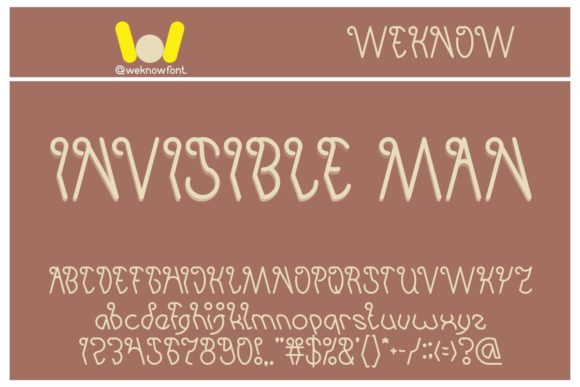
Journey into the World of the Invisible: Unleash the Mesmerizing Power of Invisible Man Font
Step into a realm where imagination knows no bounds, where typography transforms into art, and where your designs transcend the ordinary. Discover the enchanting allure of Invisible Man Font, a display font that captivates and entices with its enigmatic presence.
Designed by the visionary minds at weknow, Invisible Man Font is not just a font; it's a gateway to a world unseen. Its unique and captivating design dances upon the page, drawing eyes and sparking curiosity. Every stroke, every curve, every line is crafted with meticulous precision, embodying a harmonious blend of mystery and elegance.
With Invisible Man Font, your designs will whisper tales of intrigue and captivate your audience from the very first glance. Its enigmatic appeal makes it the perfect choice for posters, flyers, and print materials that demand attention. Let your words dance upon the page, imbued with a sense of allure and mystique that leaves an unforgettable impression.
Explore the Endless Horizons of Creativity:
Invisible Man Font is a font of limitless possibilities, inviting you to embark on a creative odyssey where boundaries dissolve and imagination reigns supreme. Its striking characters command attention, making every word, every phrase, every headline a visual masterpiece.
Unleash your creativity and let Invisible Man Font guide you through a world where designs come alive and stories unfold in a captivating symphony of form and function. Let your imagination soar and witness the transformation of your designs into works of art that capture hearts and minds.
A Font for the Visionaries, the Innovators, the Storytellers:
Invisible Man Font is more than just a collection of glyphs; it's an invitation to join a community of visionaries, innovators, and storytellers who dare to push the boundaries of design. It's a tool that empowers you to craft designs that resonate with your audience, leaving a lasting impression that lingers long after the page is turned.
Embrace the allure of the Invisible Man Font and let your designs take center stage. Experience the satisfaction of creating designs that captivate, inspire, and ignite imaginations. Discover the power of typography and elevate your designs to new heights of excellence.